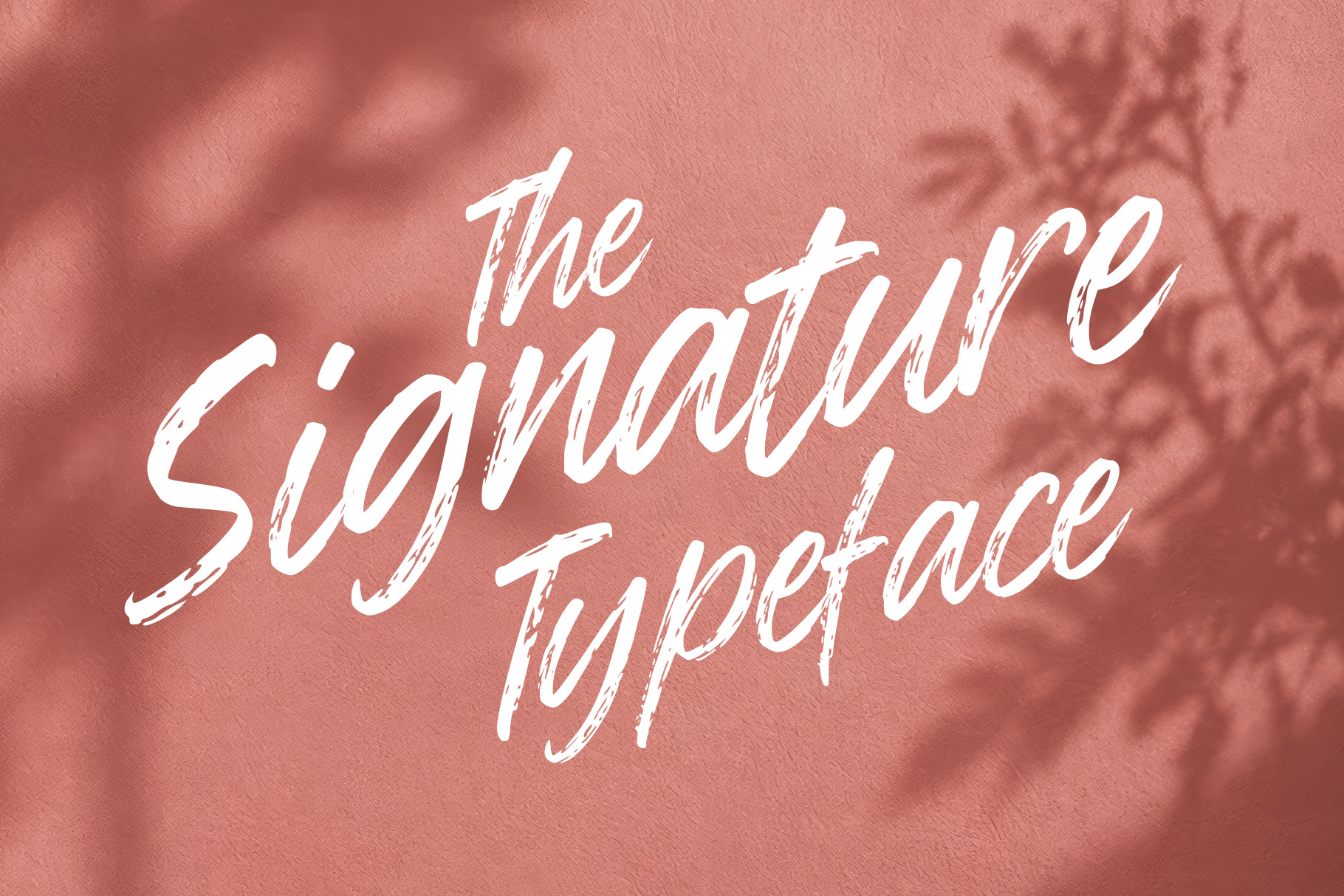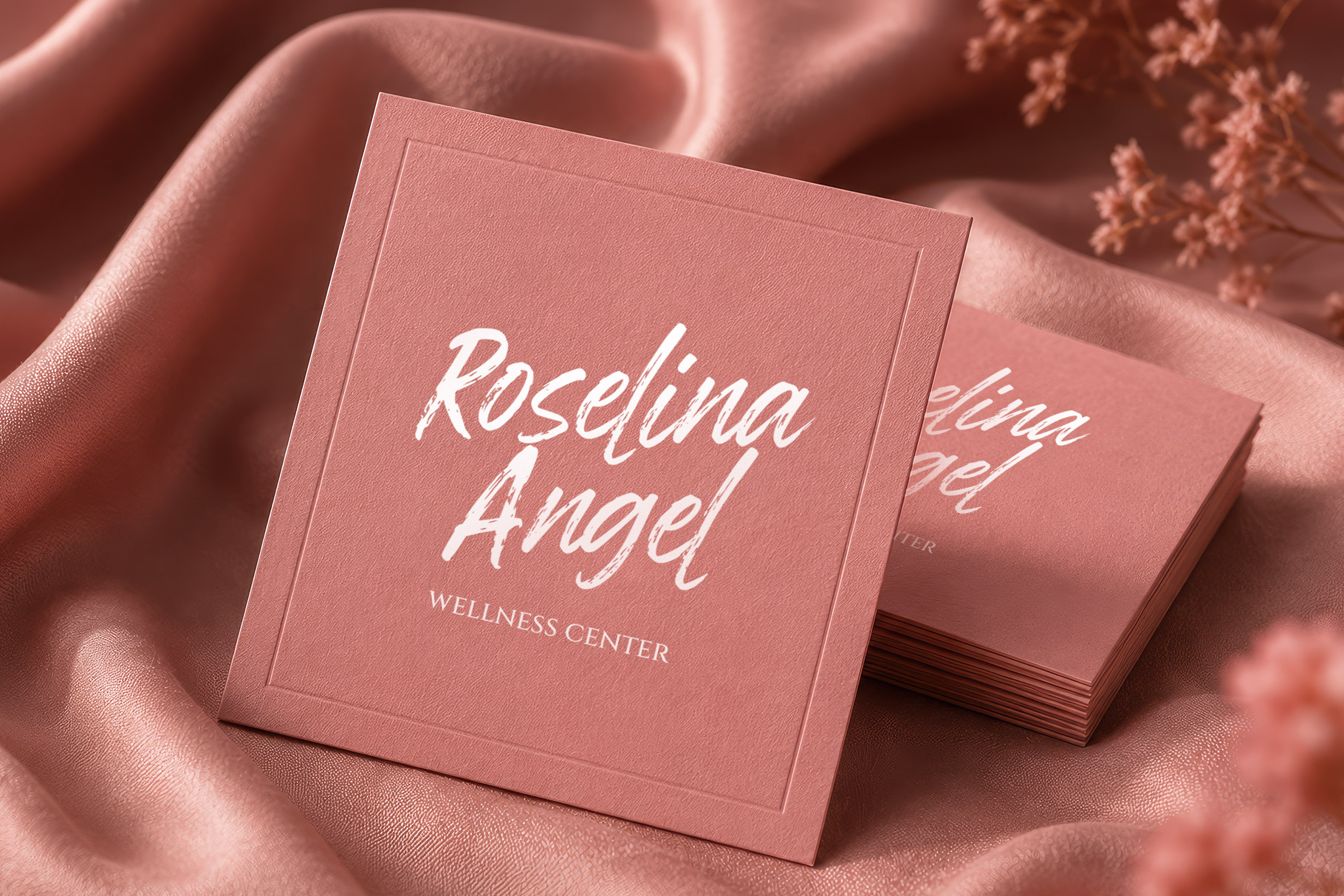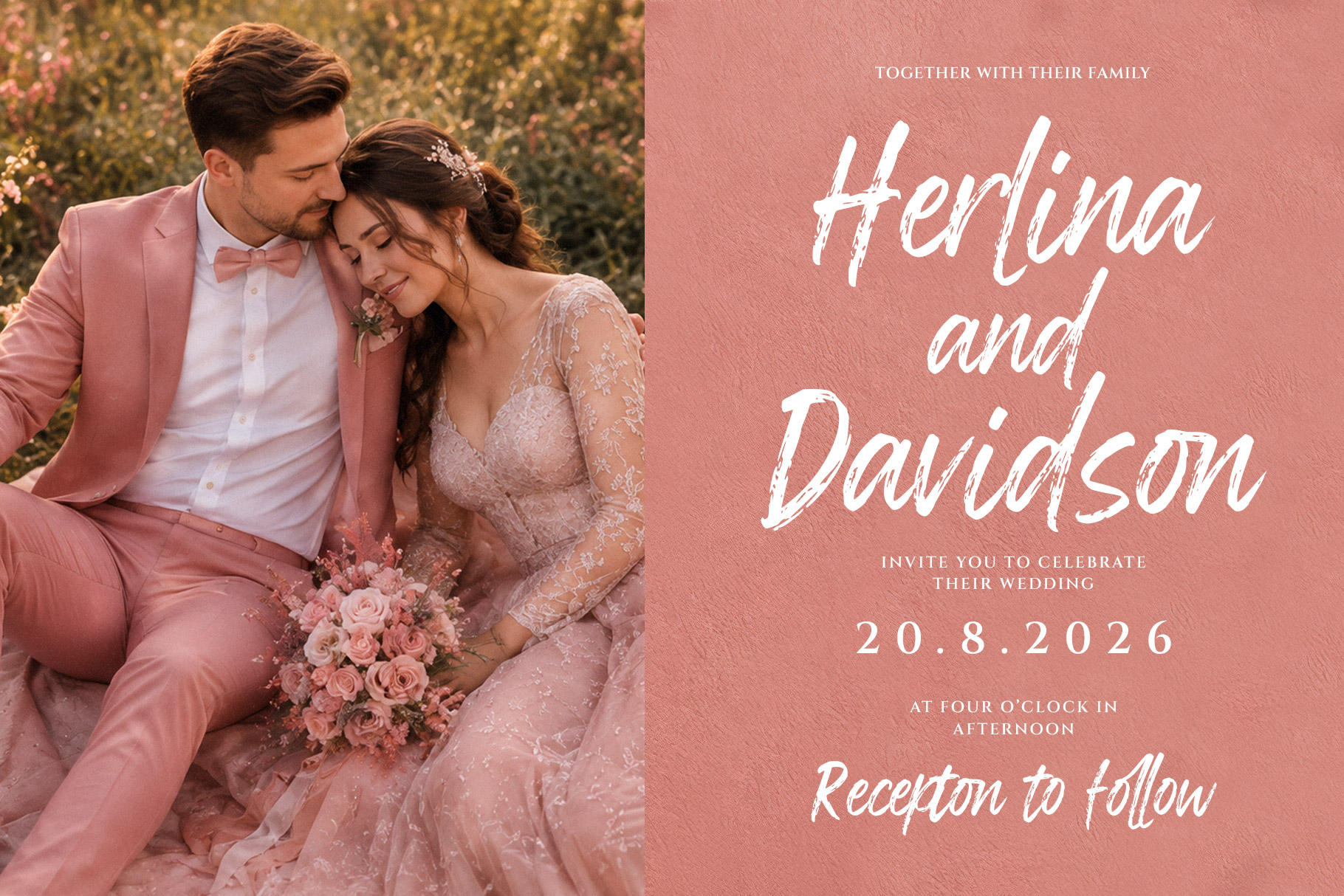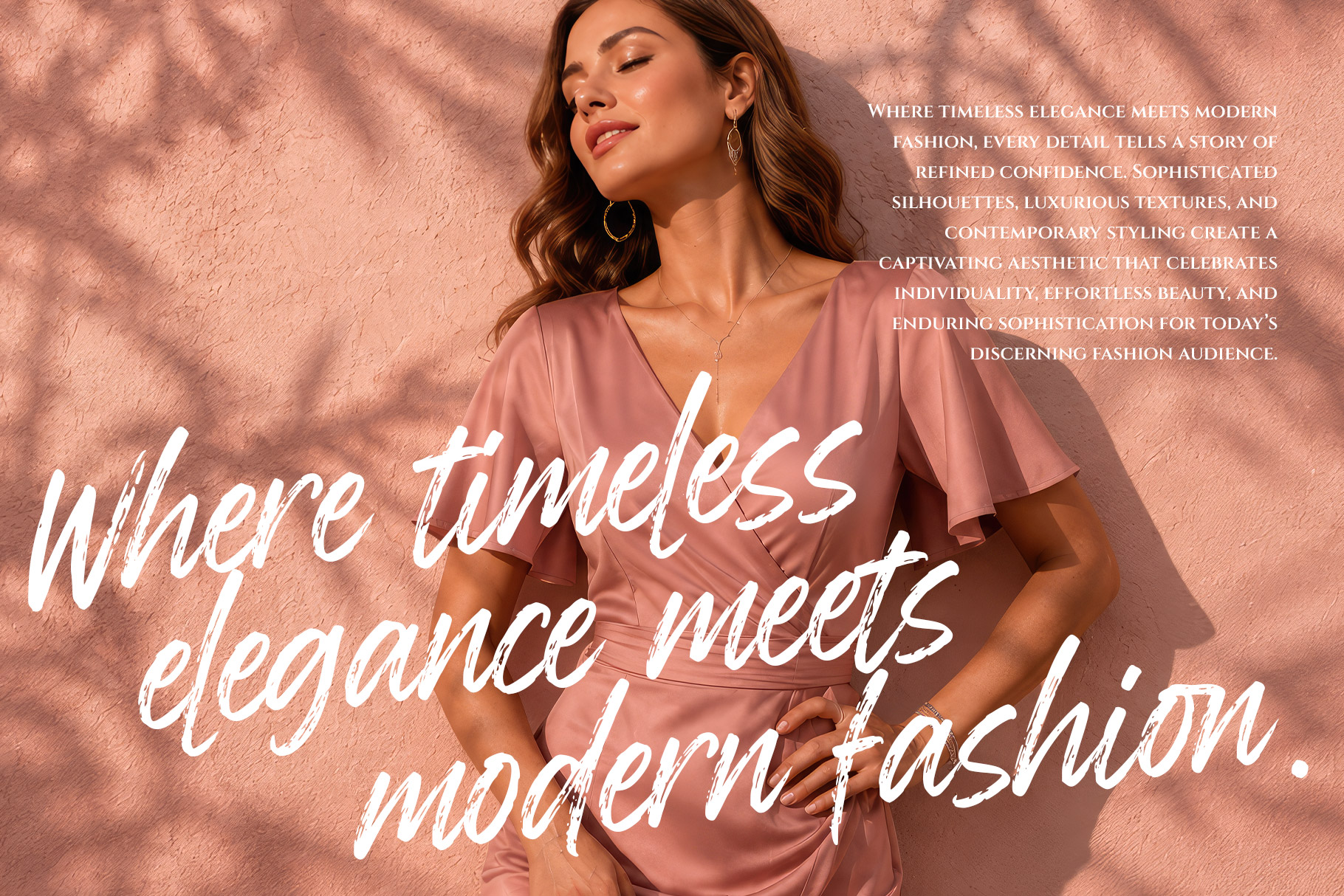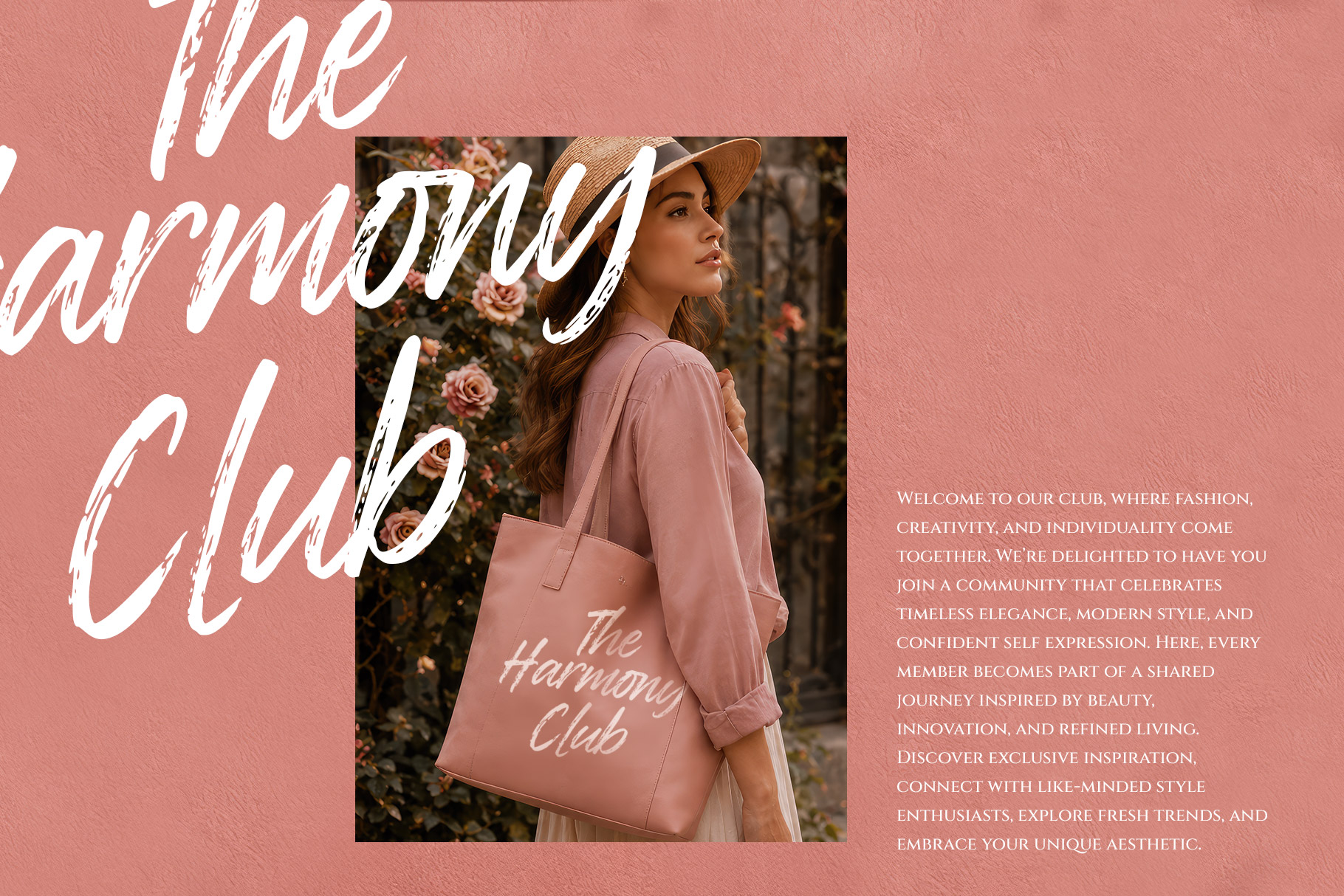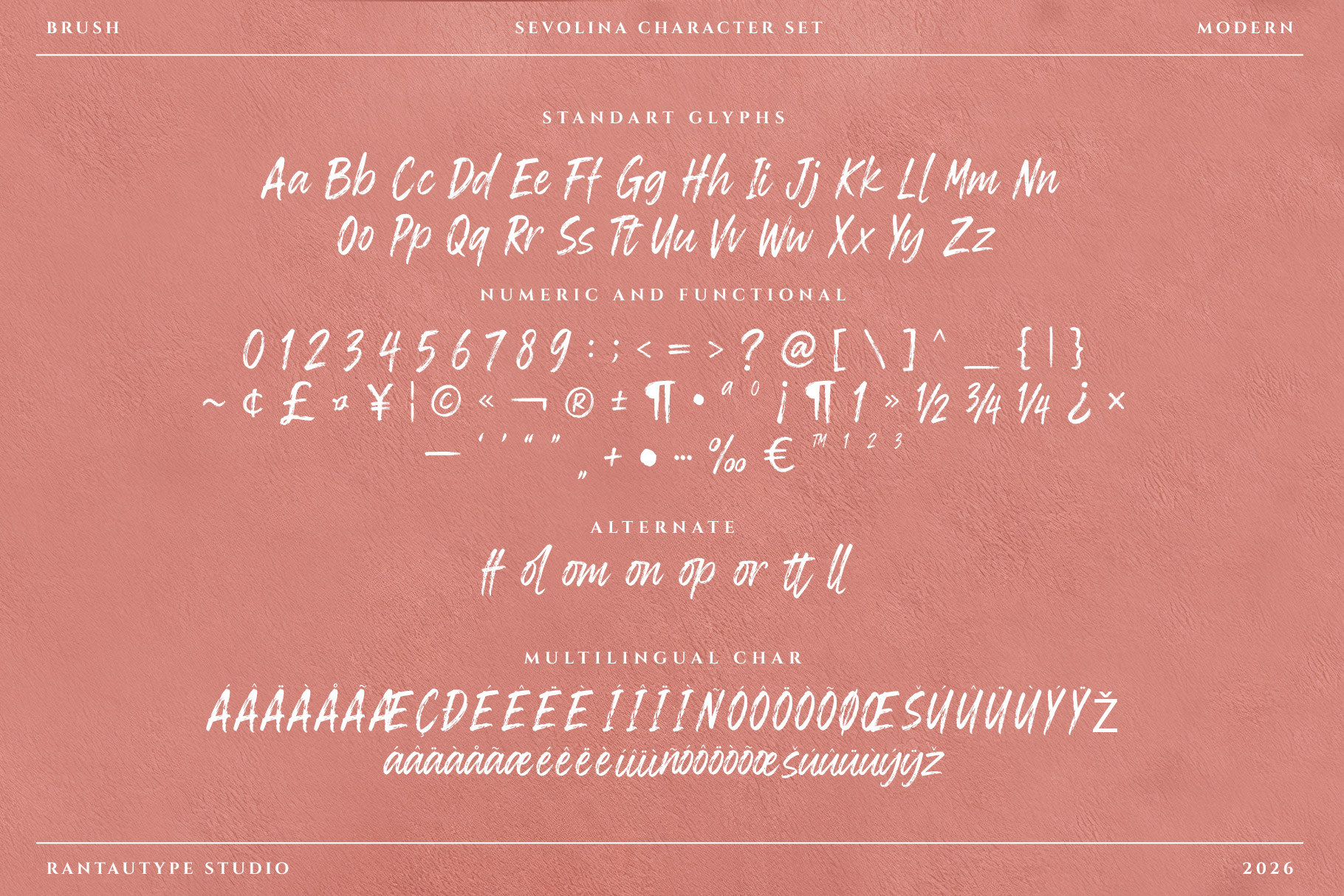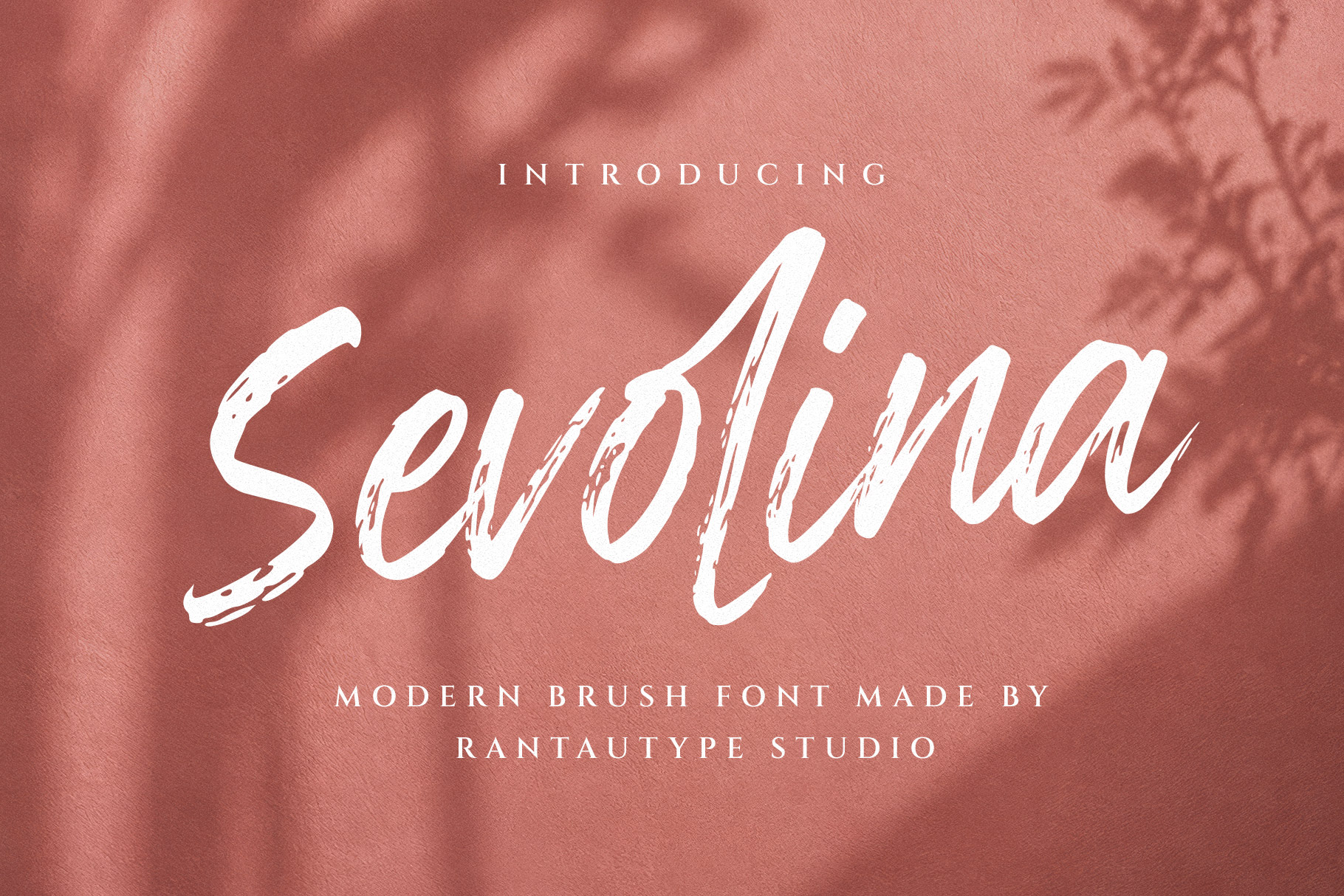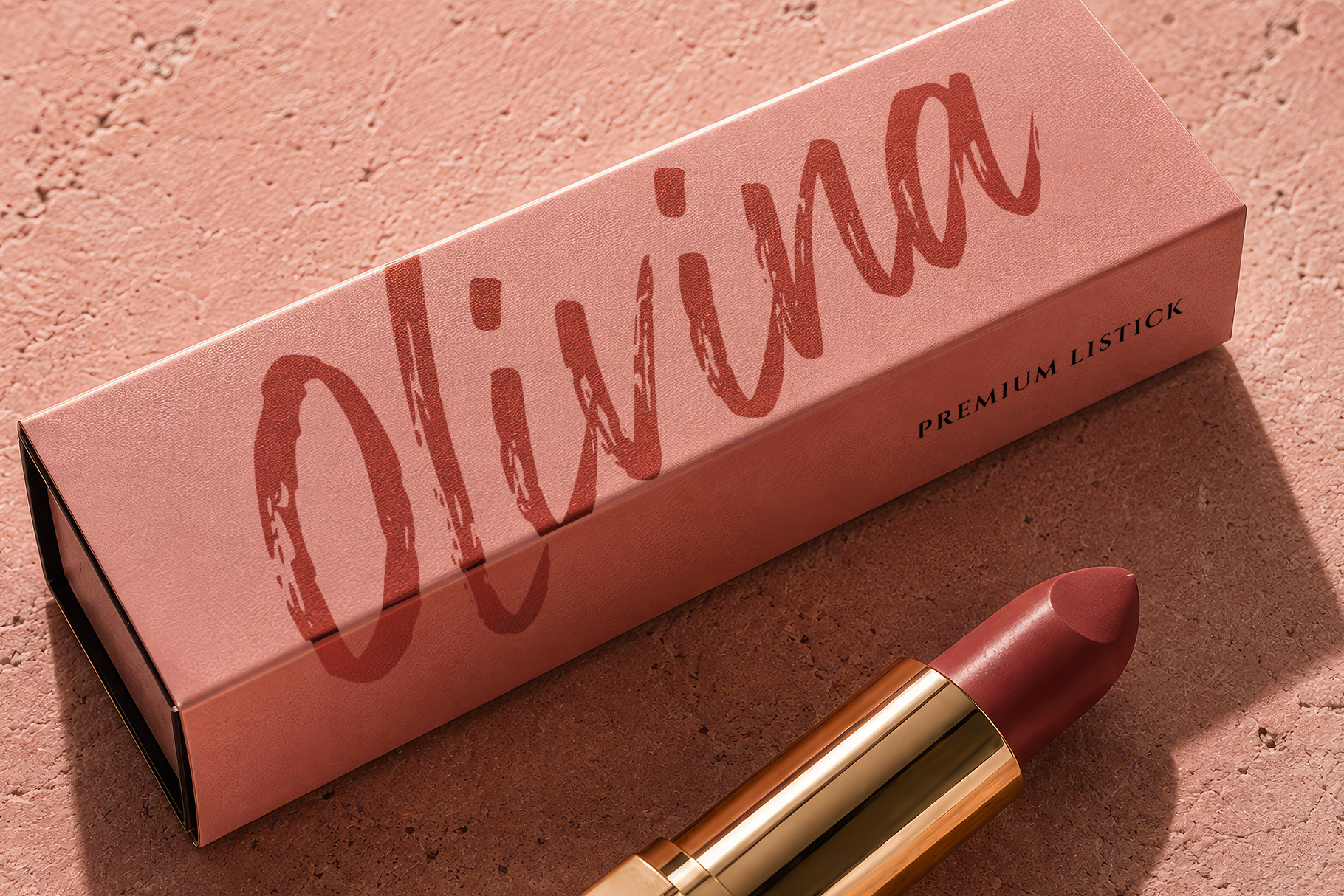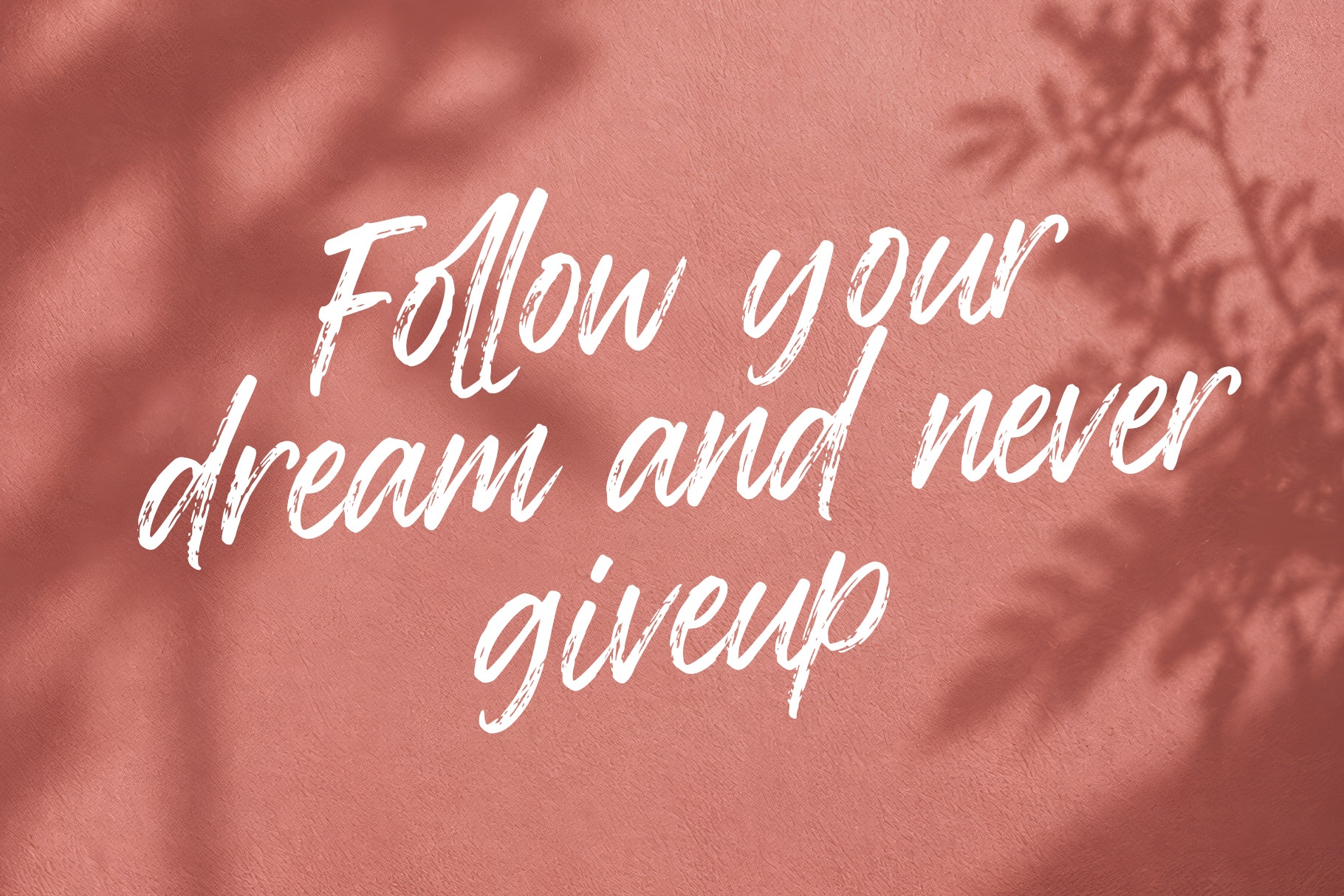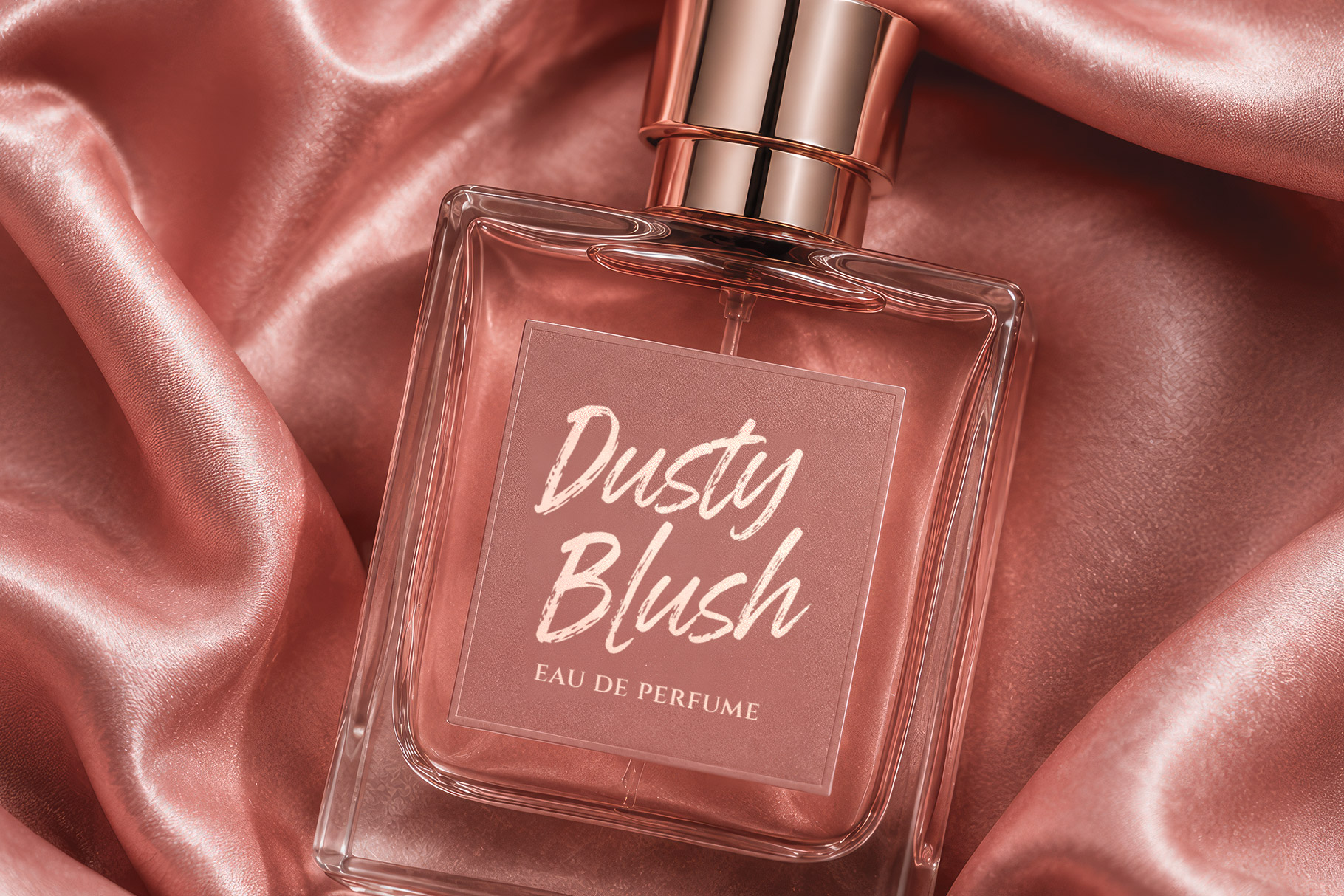
Sevolina is modern brush font brings together expressive energy, bold movement, and authentic hand-painted character. Its dynamic strokes create a strong sense of spontaneity, while textured edges and natural imperfections add a handcrafted personality.
Sevolina is a perfectly choice for any creative endeavor, creating, modern, lifestyle design such as logotype, title, cover, branding, invitations, display and magazine, social media posts, advertisements, printed quotes, product packaging, corporate brand, product designs, labels, photography, watermarks, special events and any other project with modern touch.